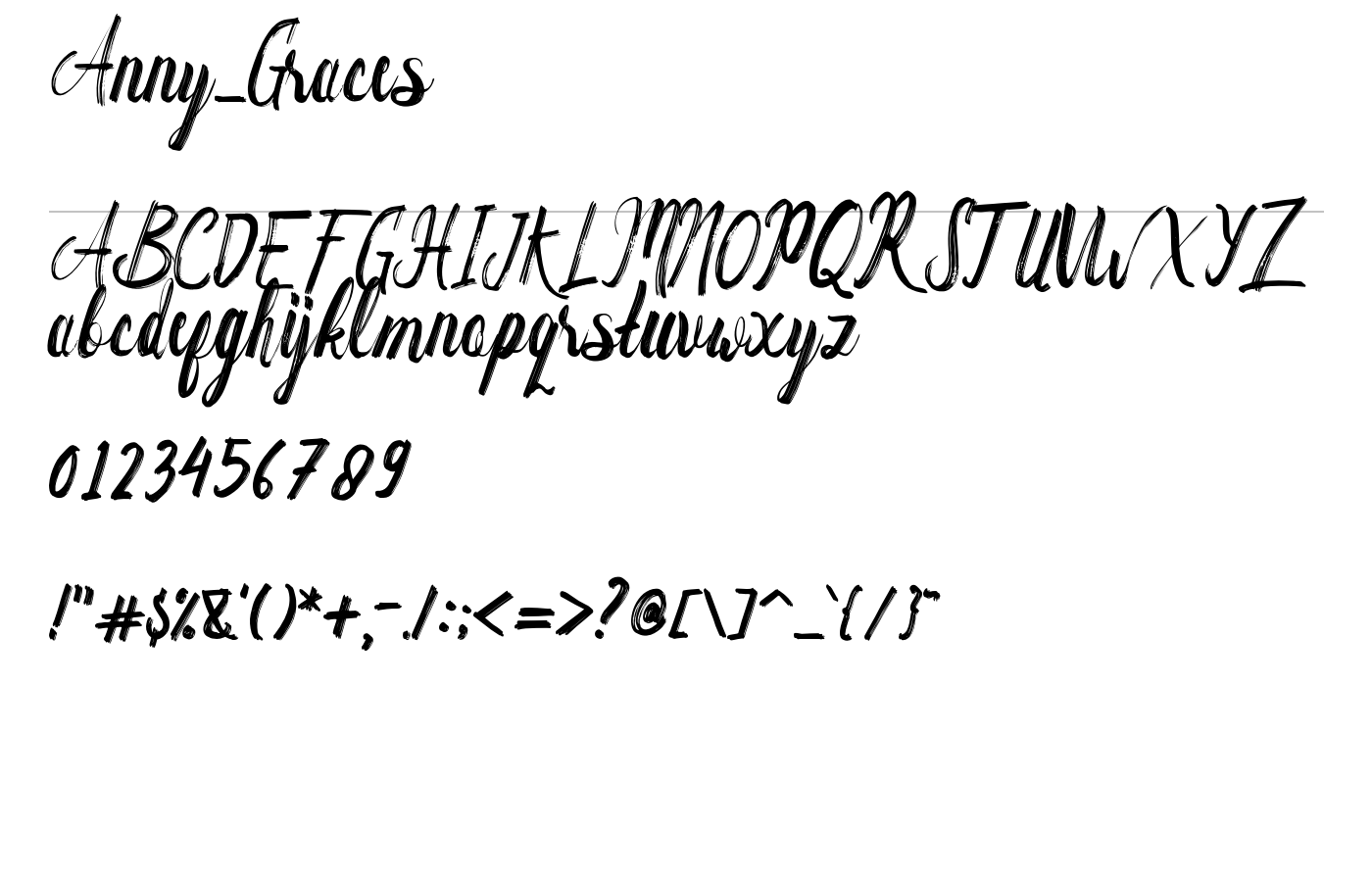
Anny_Graces is a lively and elegant script font with a handwritten feel, featuring a consistent medium weight and a slightly narrow width that adds a charming, personal touch. Its flowing letterforms have a natural, brush-like texture with moderate contrast and distinctive looped strokes, making it perfect for creative and stylish branding, invitations, or expressive headlines that need warmth and character. This font works well where a graceful yet energetic look is desired, bringing a friendly and artistic vibe to design projects.
Anny_Graces Font
About Anny_Graces Font